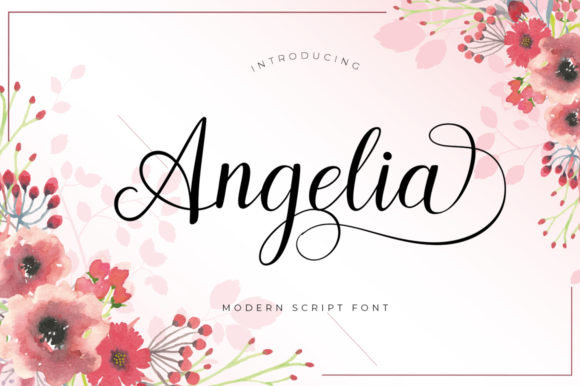
Introducing Angelia Script Font: The Modern Feminine Touch
The Angelia Script Font is a stylish and contemporary addition to the world of typography. With its irregular baseline and trendy, feminine style, it has captured the hearts of designers and crafty enthusiasts alike. This versatile font is perfect for a wide range of applications, from wedding invitations and thank you cards to quotes, greeting cards, logos, business cards, and more.
What Makes Angelia Script Font Special?
Angelia Script Font stands out from the crowd due to its unique characteristics. The irregular baseline gives it a hand-written, organic feel that is both modern and sophisticated. The font’s trendy and feminine style makes it an ideal choice for designs that require a touch of elegance and charm.
Key Features of Angelia Script Font:
- Irregular Baseline: Gives the font a hand-written, organic feel.
- Trendy and Feminine Style: Perfect for designs that require a touch of elegance and charm.
- Versatile: Suitable for a wide range of applications, from wedding invitations to business cards.
Uses of Angelia Script Font
The Angelia Script Font is incredibly versatile and can be used for various design projects. Here are some of the most popular uses:
Popular Use Cases:
- Wedding Invitations: Adds a touch of elegance and romance to wedding invitations.
- Thank You Cards: Perfect for expressing gratitude with a personal touch.
- Quotes: Ideal for highlighting inspirational and motivational quotes.
- Greeting Cards: Suitable for birthday, anniversary, and holiday cards.
- Logos: Can be used to create a unique and memorable logo for businesses.
- Business Cards: Adds a touch of professionalism and elegance to business cards.
Why Choose Angelia Script Font?
There are many script fonts available, but Angelia Script Font stands out due to its unique style and versatility. Here are some reasons why you should choose Angelia Script Font:
Why Choose Angelia Script Font:
- Unique Style: The font’s irregular baseline and trendy style make it stand out from other script fonts.
- Versatility: Suitable for a wide range of applications, from wedding invitations to business cards.
- Elegance: Adds a touch of elegance and sophistication to designs.
- Easy to Read: The font is clear and easy to read, making it perfect for body text and headings.
Tips for Using Angelia Script Font
Here are some tips for using Angelia Script Font effectively:
Tips for Using Angelia Script Font:
- Use it Sparingly: Use the font sparingly to avoid overwhelming the design.
- Pair it with Other Fonts: Pair Angelia Script Font with other fonts to create a unique and visually appealing design.
- Adjust the Size: Adjust the font size to create visual hierarchy and emphasis.
- Experiment with Colors: Experiment with different colors to find the perfect match for your design.
In conclusion, Angelia Script Font is a modern and versatile font that can add a touch of elegance and sophistication to designs. Its unique style, irregular baseline, and trendy and feminine style make it perfect for a wide range of applications. With its ease of use and flexibility, Angelia Script Font is an excellent choice for designers and crafty enthusiasts alike.